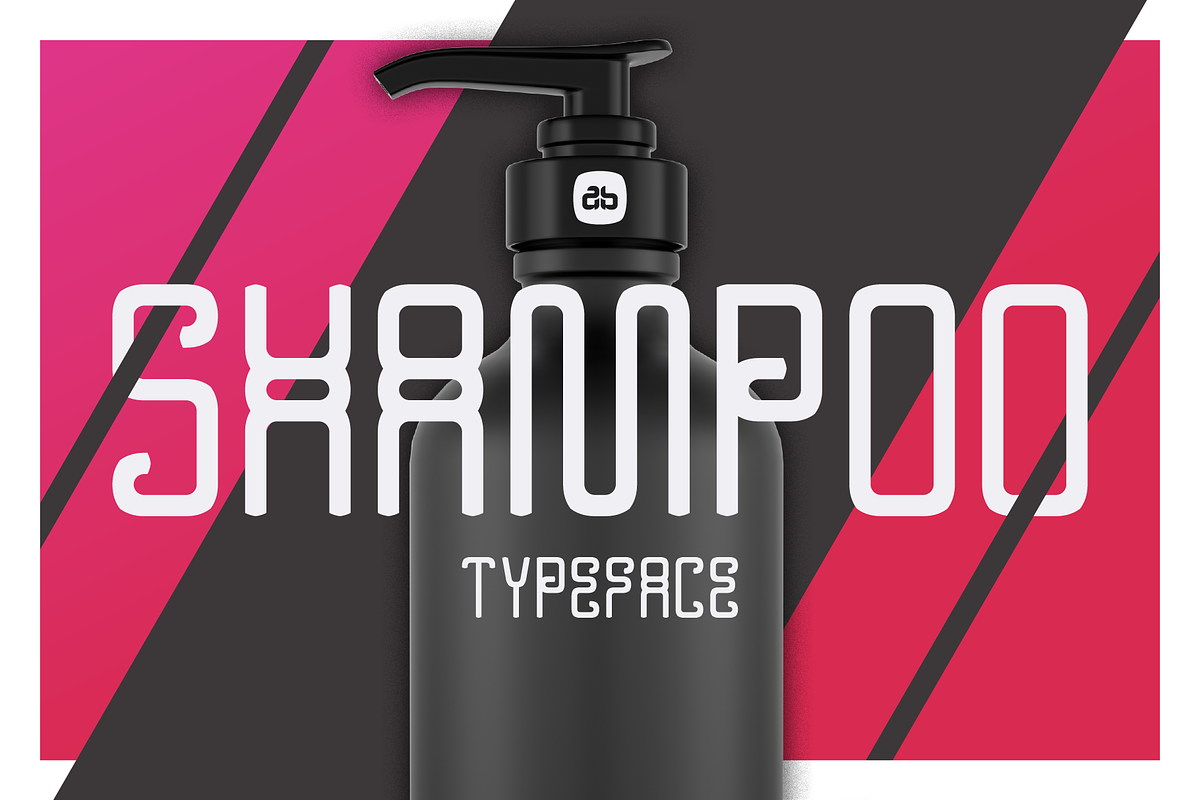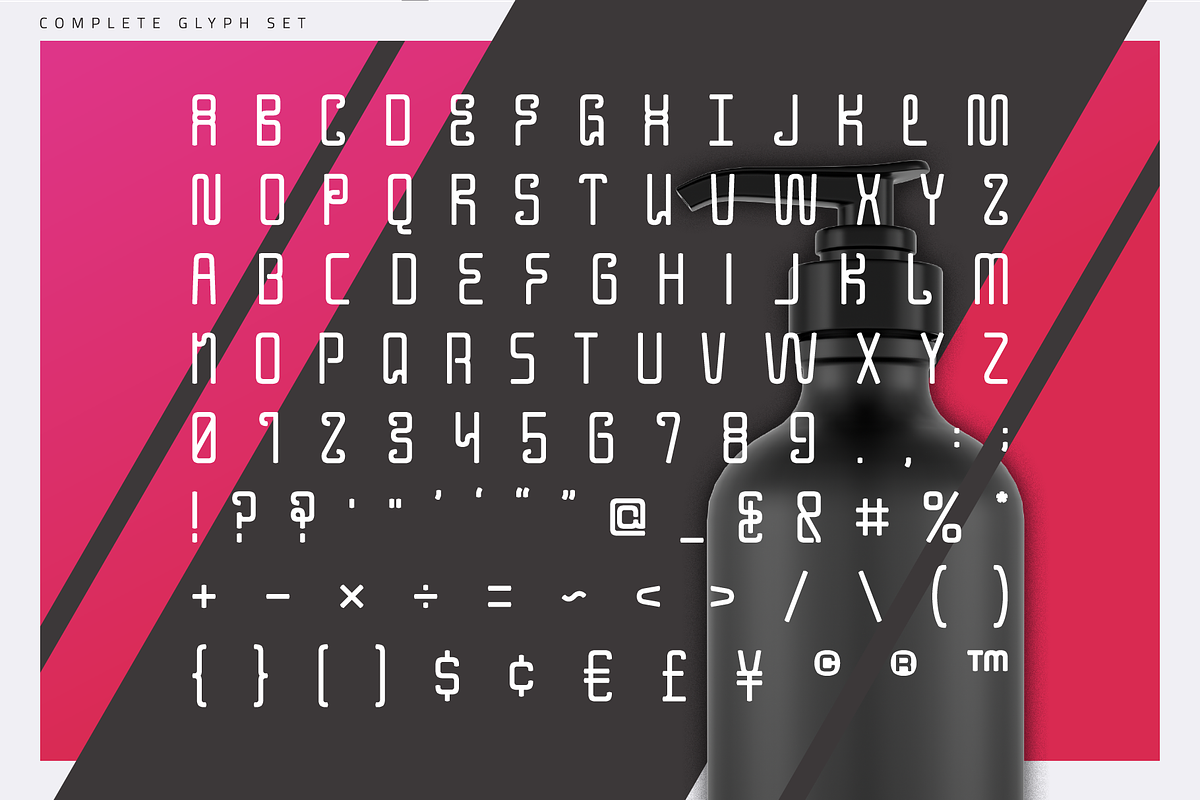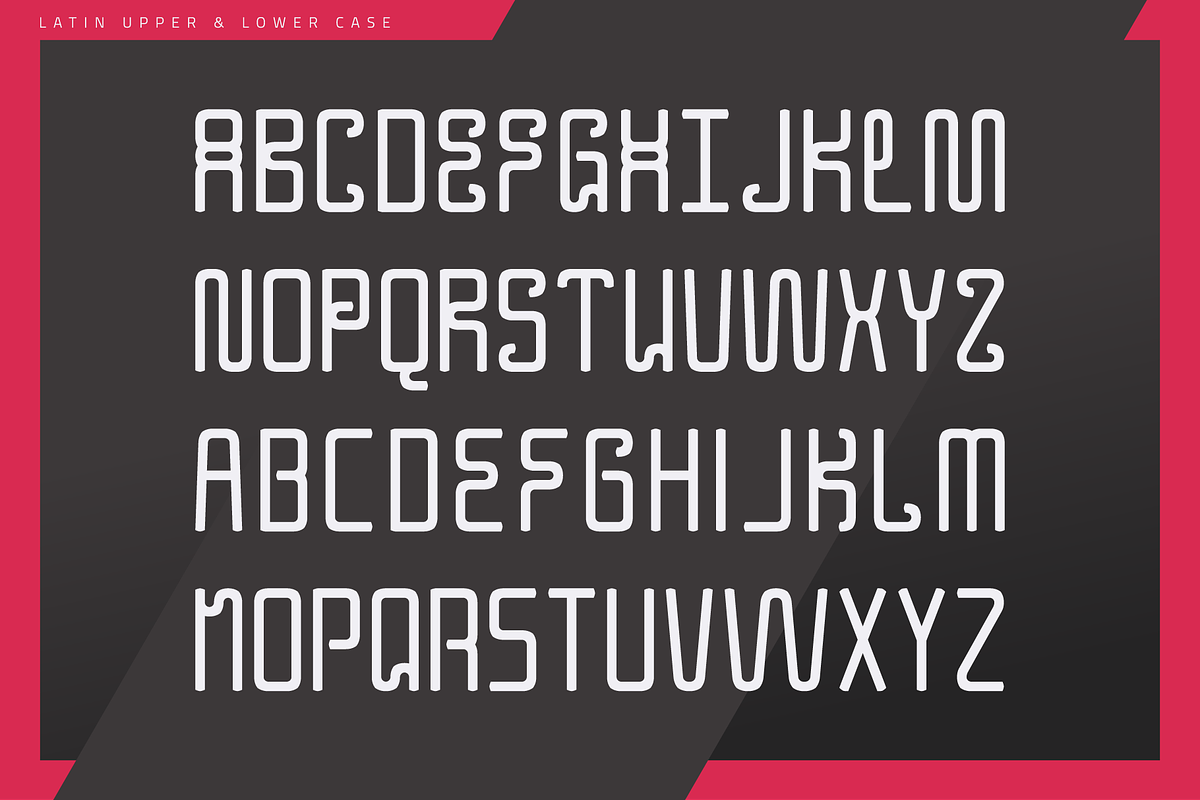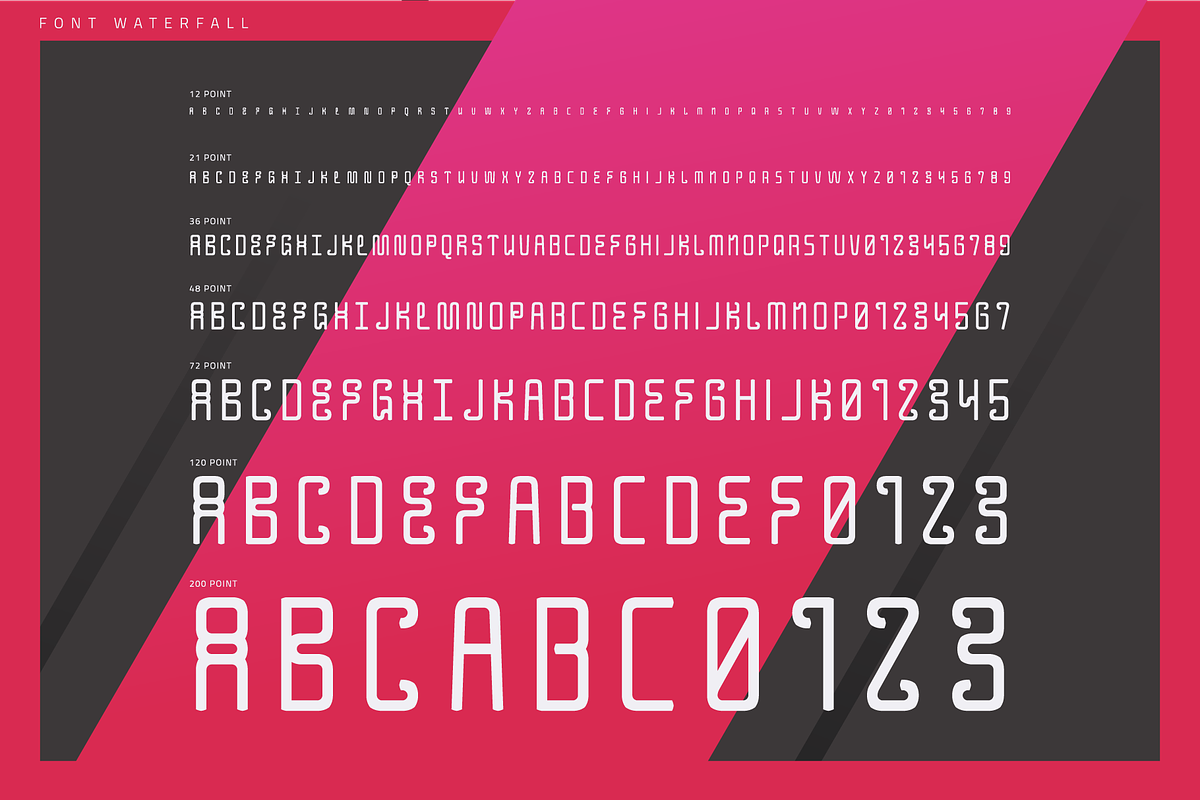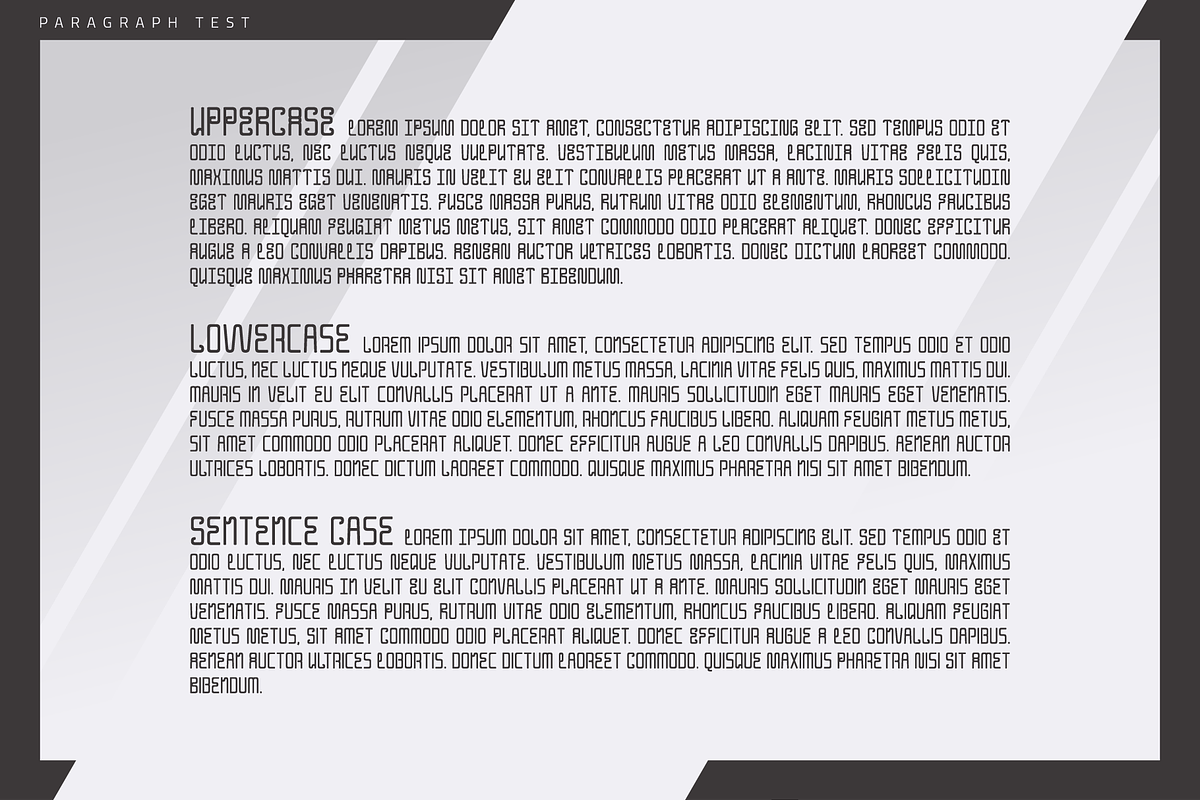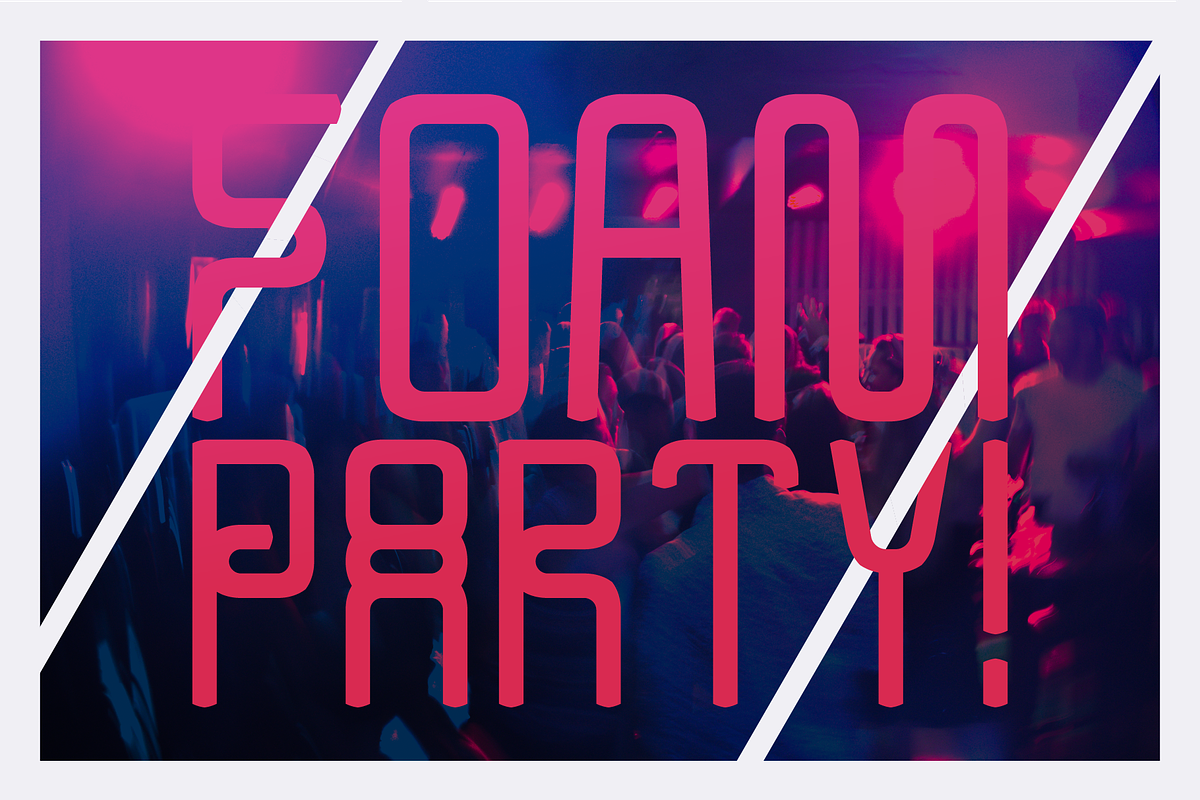
SHAMPOO Experimental Typeface
Shampoo is an odd name but one I’d given it right from its very early stages of testing the first batch of characters, and it always stuck in my head so why change it?!
Shampoo is an unusual typeface with its looping elements, multiple bars and arrow like end caps. With it’s being such a different approach and direction I felt a lowercase option would be lost, so instead created an alternative uppercase as the lower instead.
You really can mix, match and experiment using Upper & Lowercase with this typeface. So go mad!